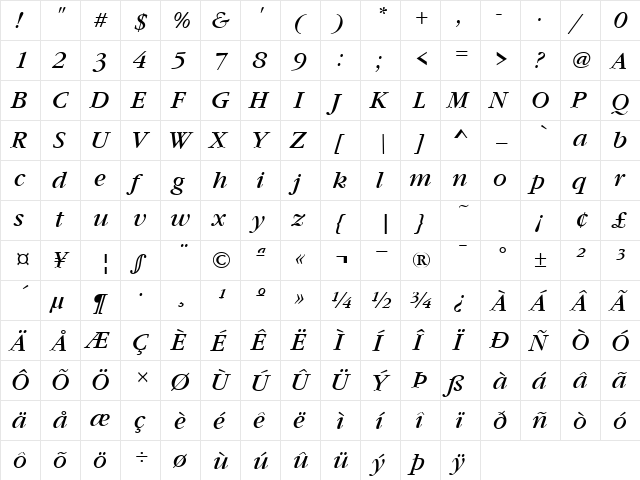
GaramondNova Italic
Design Context for GaramondNova Typeface
GaramondNova takes a measured approach to typography — its balanced proportions and neutral character make it a reliable workhorse for both digital and print work. The dynamic lean of this cut emphasises speed and emphasis in any layout.
Pro Tip: Use GaramondNova for emphasis, pull quotes, and subheadings where its slanted energy can add rhythm to the layout.